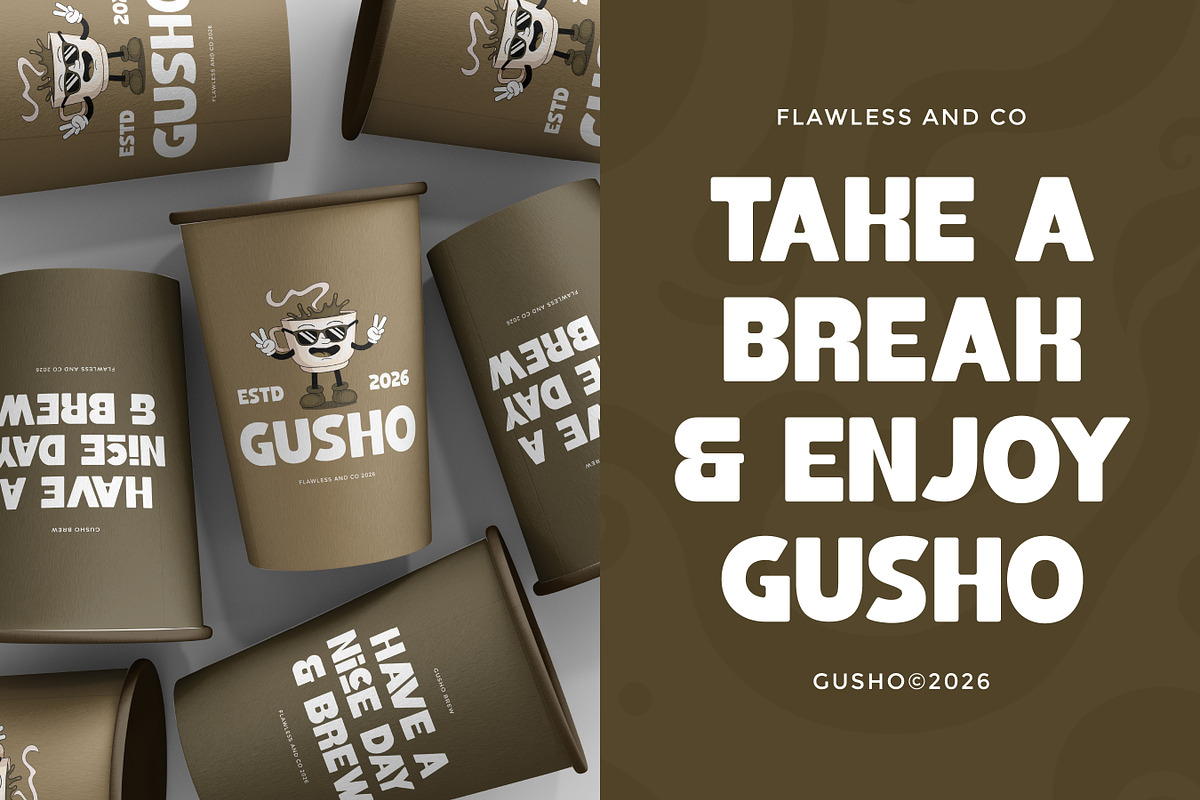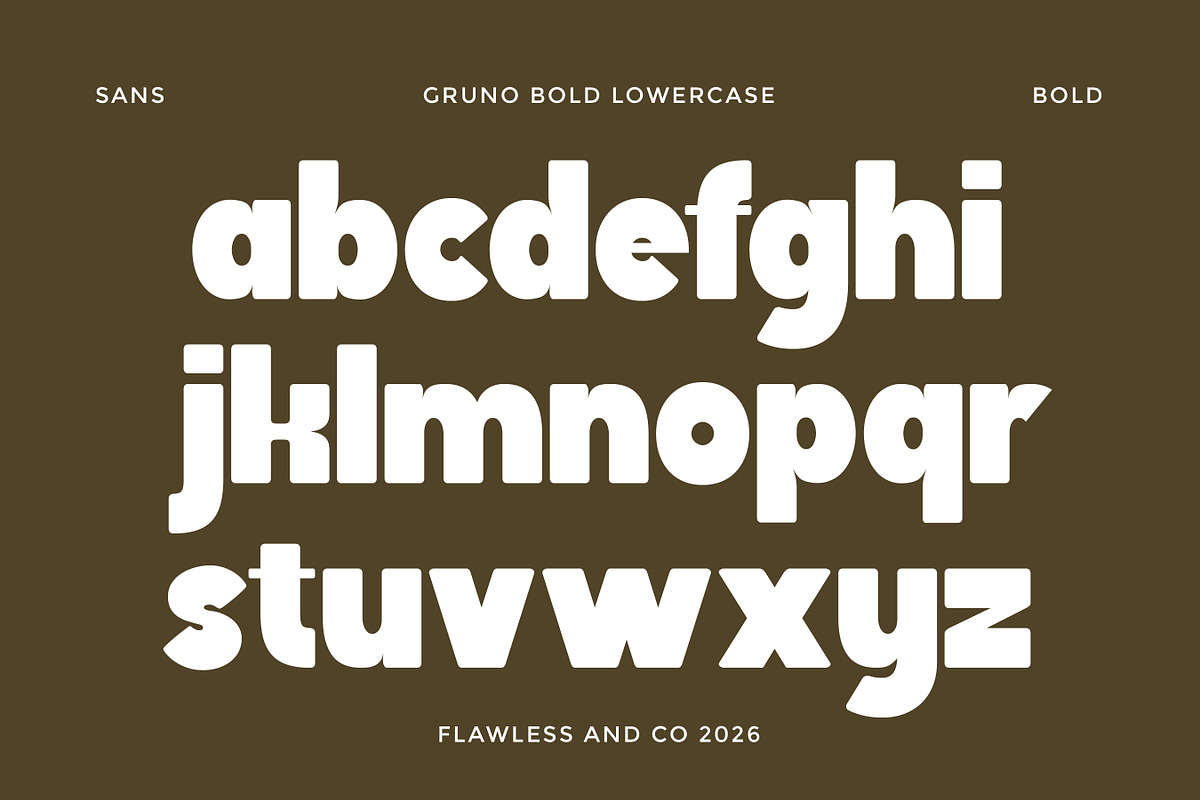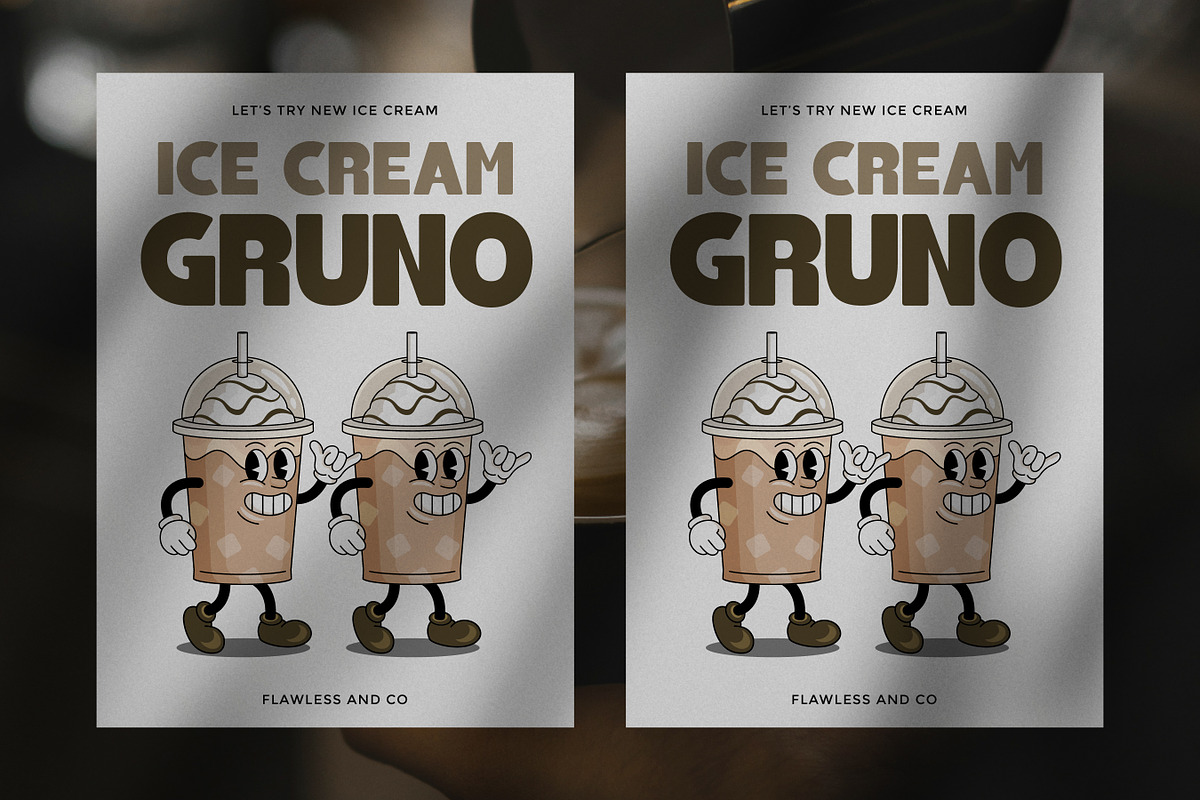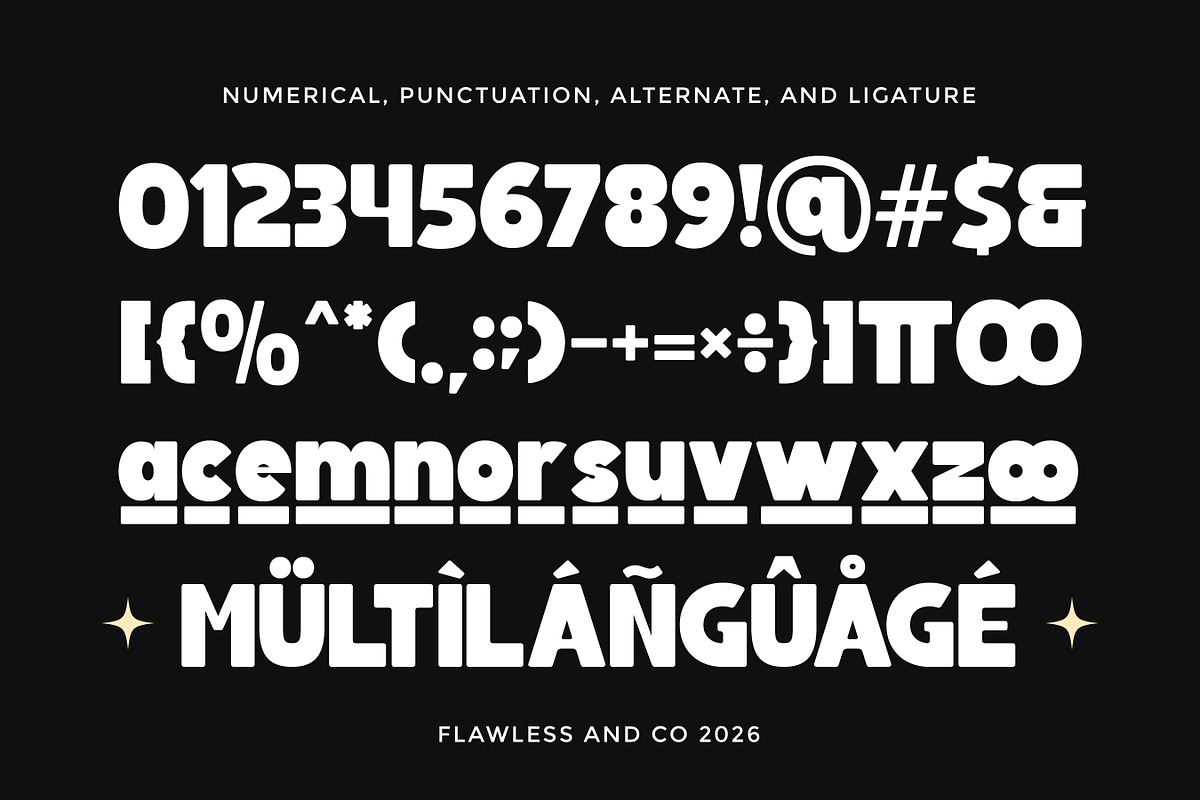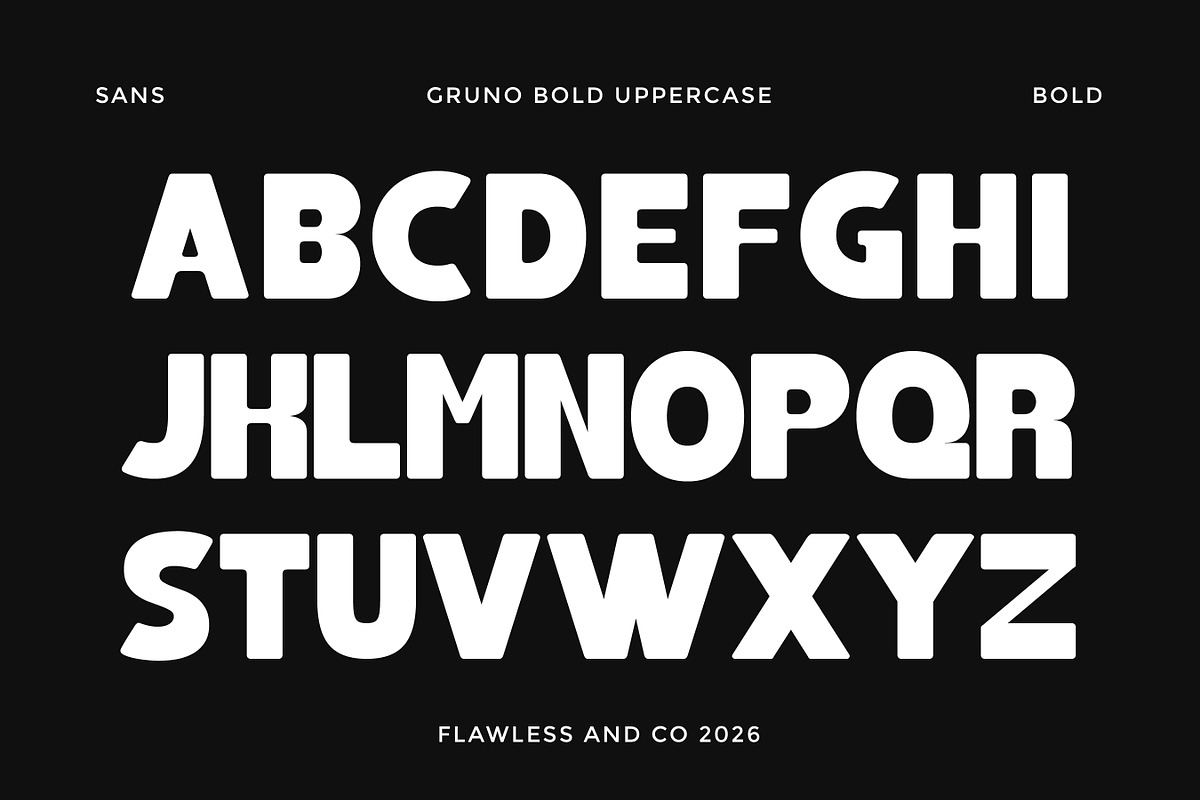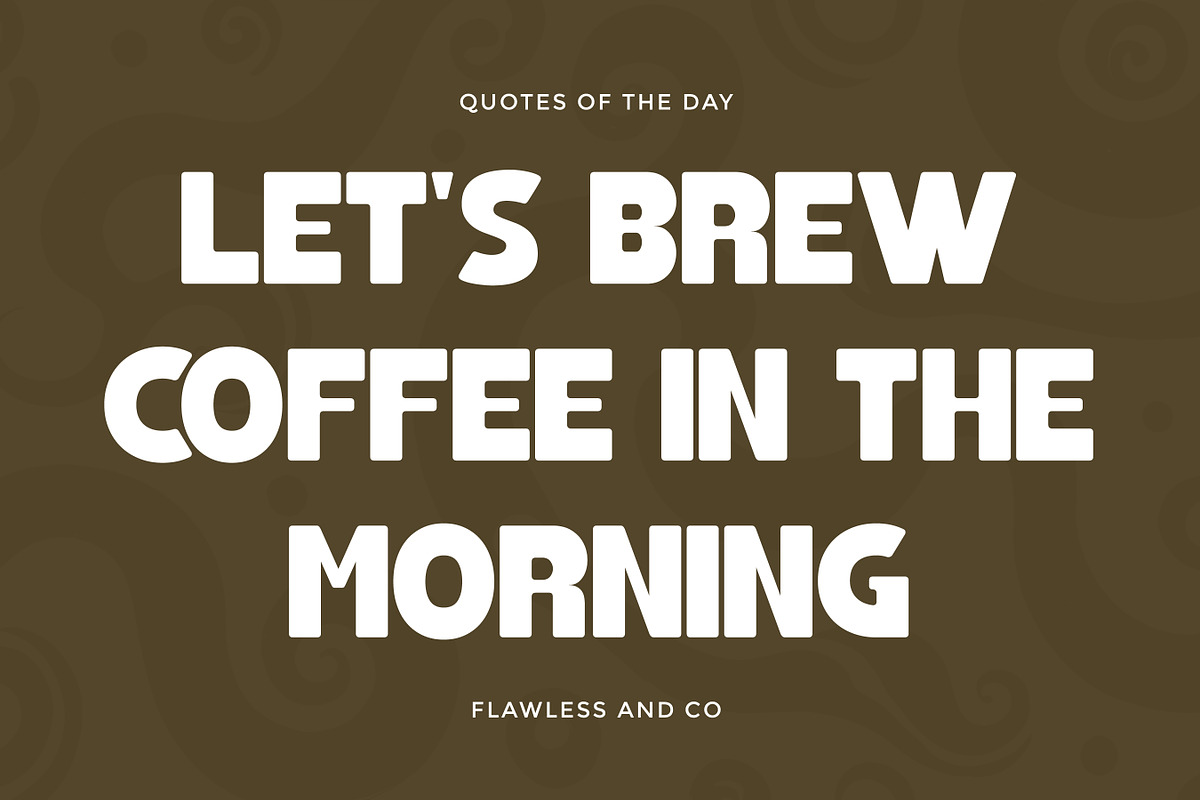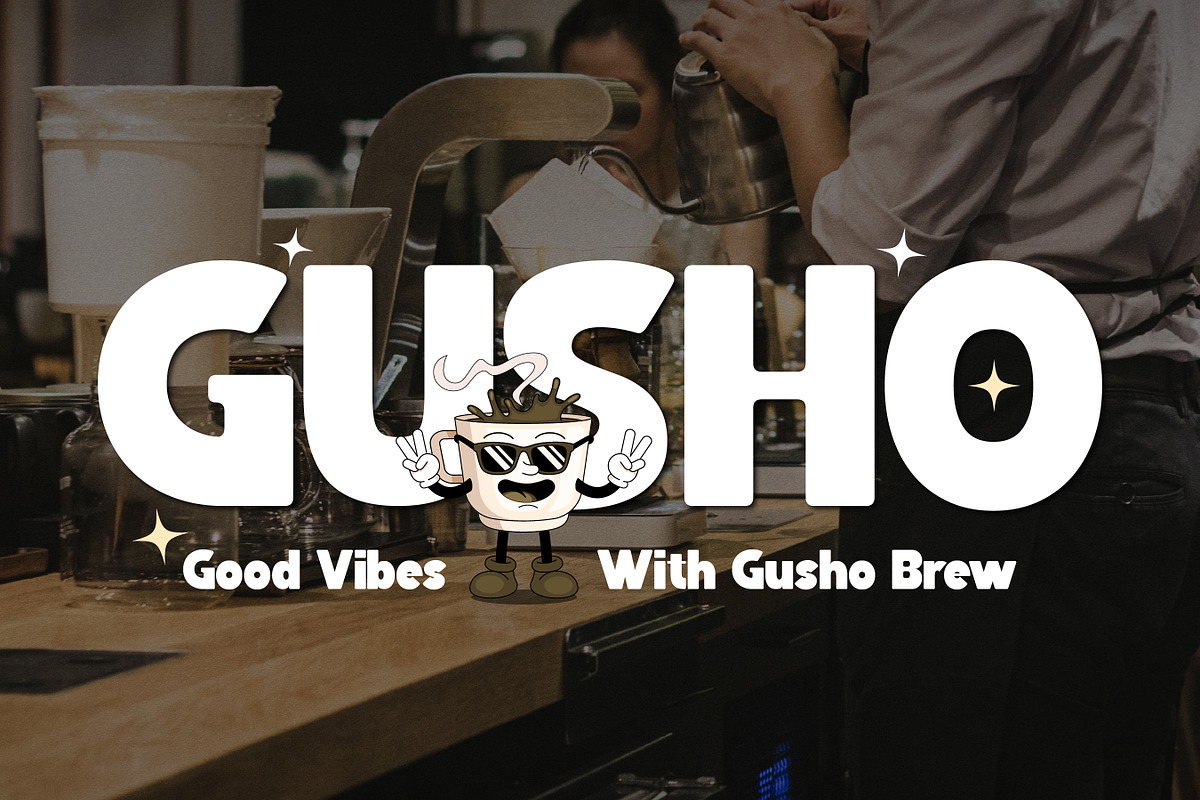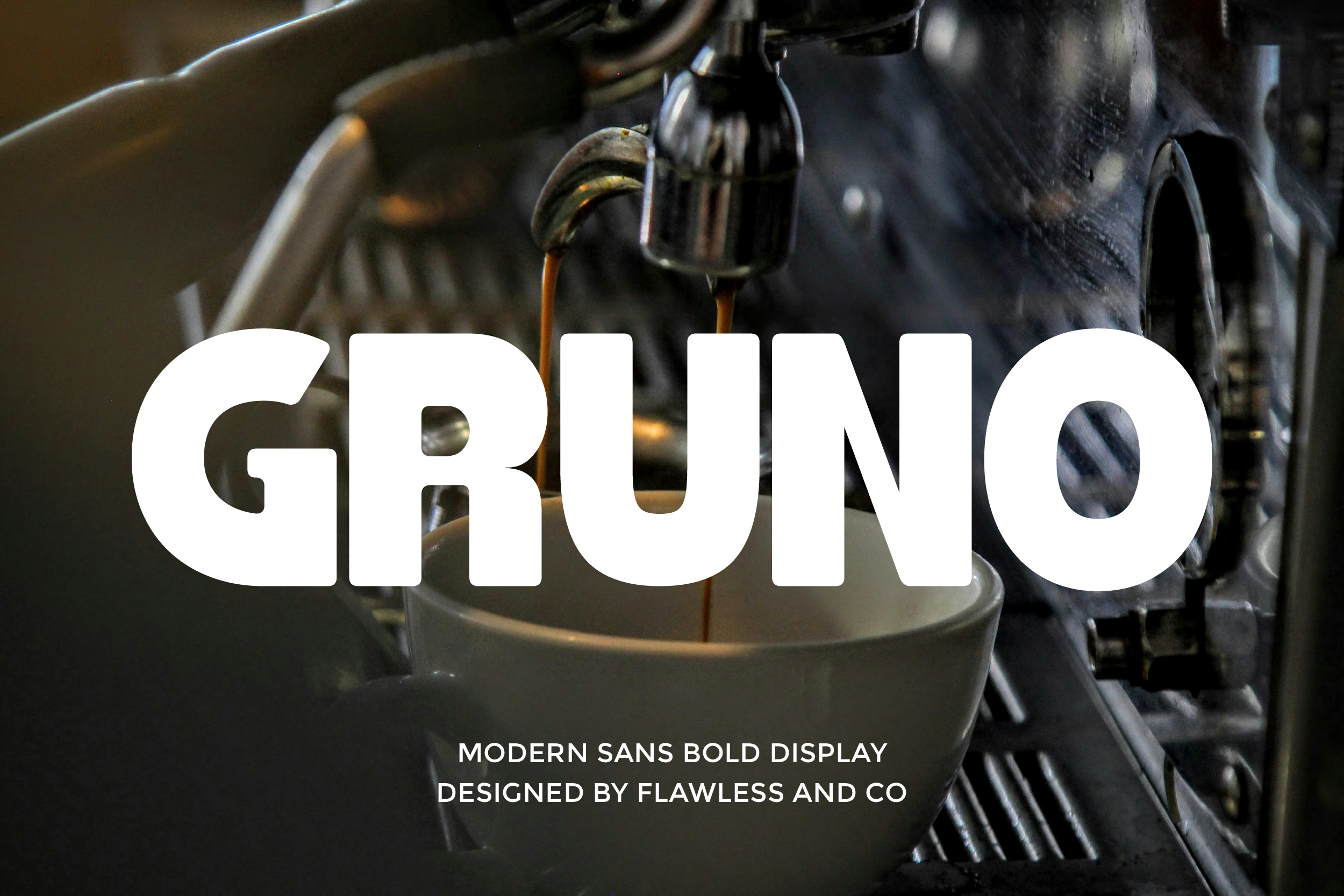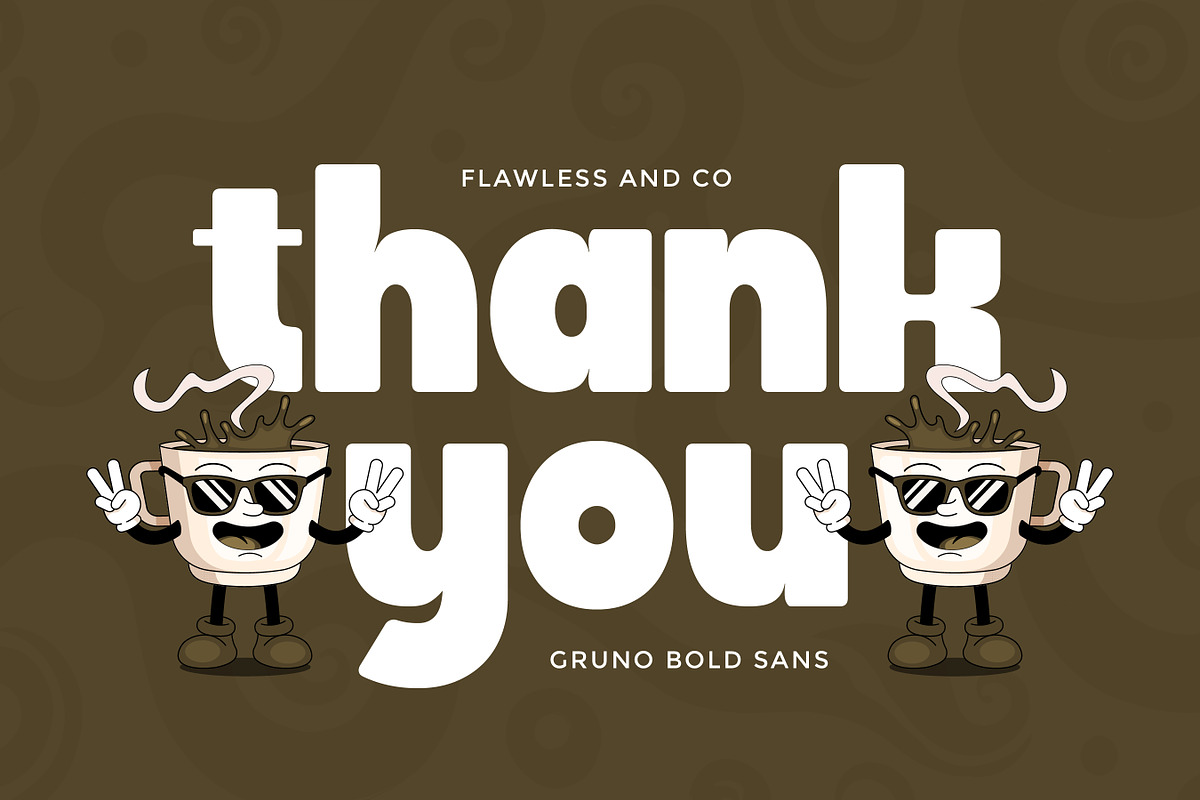
Gruno - Bols Sans Serif Font
Gruno is a bold sans serif display font designed to deliver strong visual impact with a modern and confident character. Featuring thick strokes, solid letterforms, and clean geometry, Gruno is built to stand out instantly while maintaining excellent readability. This font is perfect for designers who need a powerful typographic voice.
Who Should Use Gruno?
Gruno is ideal for designers and creatives who need a bold, modern typeface to make their work stand out. It’s perfect for brand designers looking to create strong and memorable logos, as well as graphic designers working on posters, headlines, and promotional materials that demand high visual impact. Gruno is also well-suited for content creators, marketers, and businesses that want a confident and contemporary look for advertising, packaging, and social media visuals.
Suitable for:
- Branding & logo design
- Posters and bold headlines
- Advertising and marketing materials
- Packaging design
- Social media graphics
- Website headers and hero sections
- Merchandise and apparel design